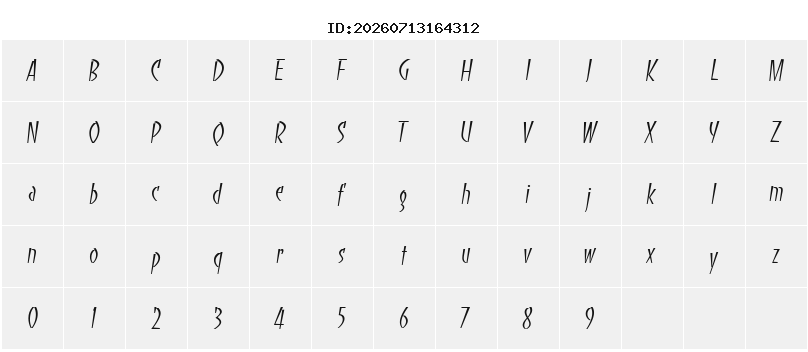
BancoITC TT Preview
• Font Name: BancoITC TT
• Font Style: Light
• Font ID: BancoITC TT Light
• Full Font Name: BancoITC TT Light
• PostScript Name: BancoITCTTLight
About BancoITC TT.ttf
BancoITC TT.ttf is a modern, elegant sans-serif font designed for ultimate readability and visual harmony. Perfect for branding, headlines, web design, and print materials.